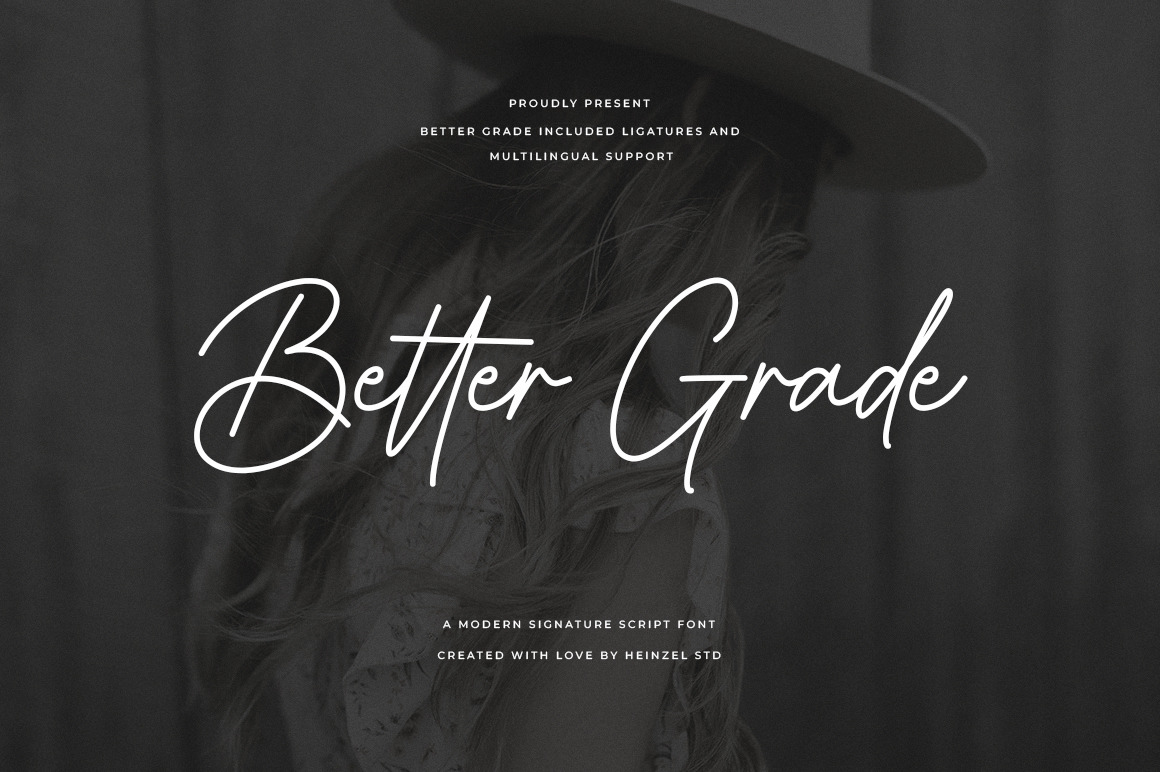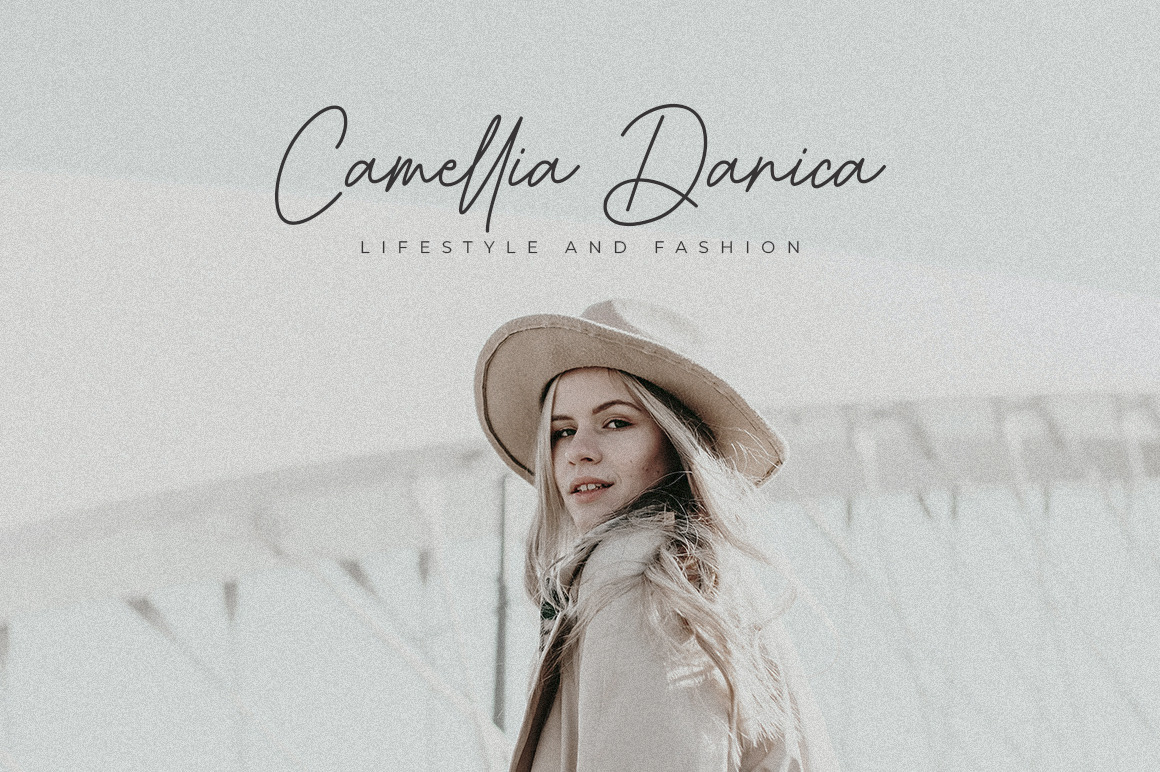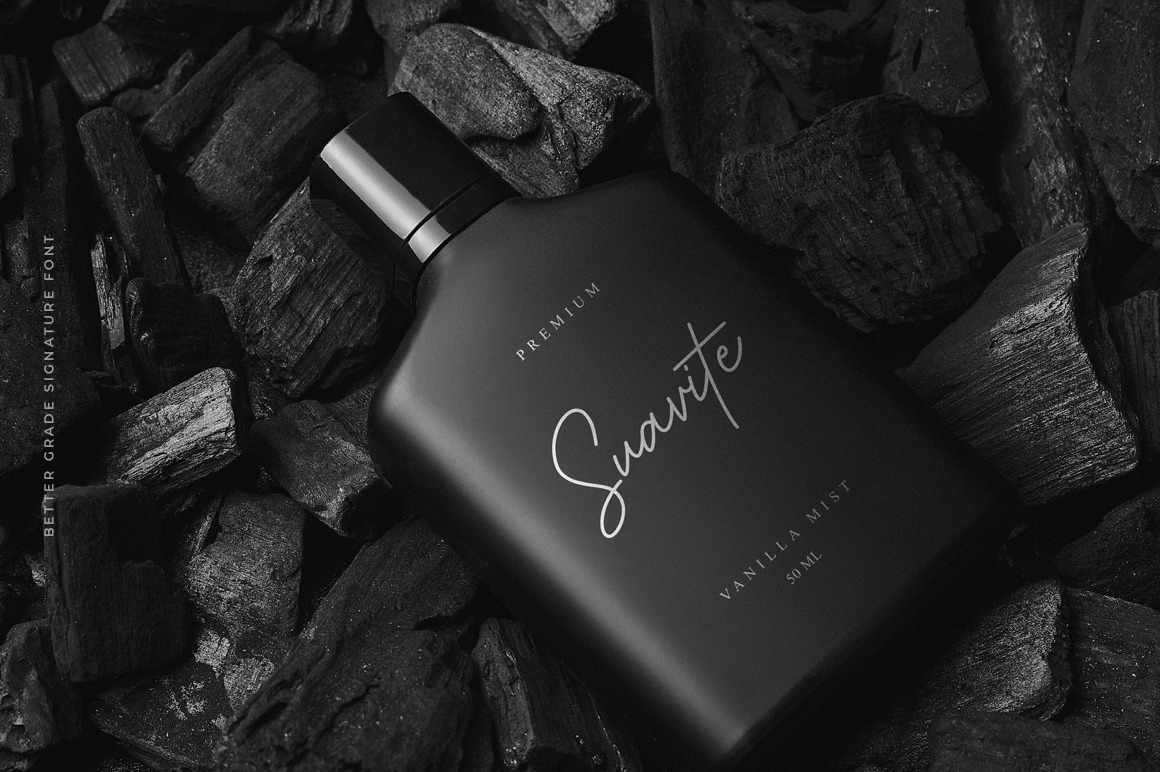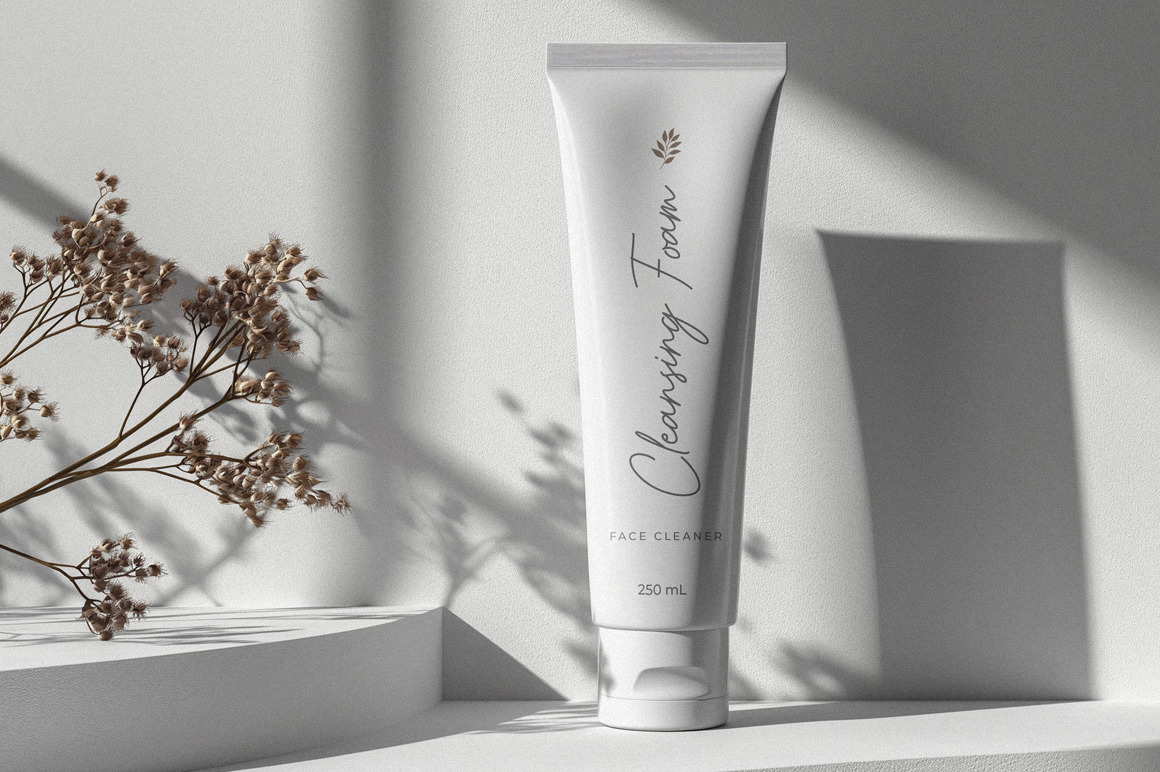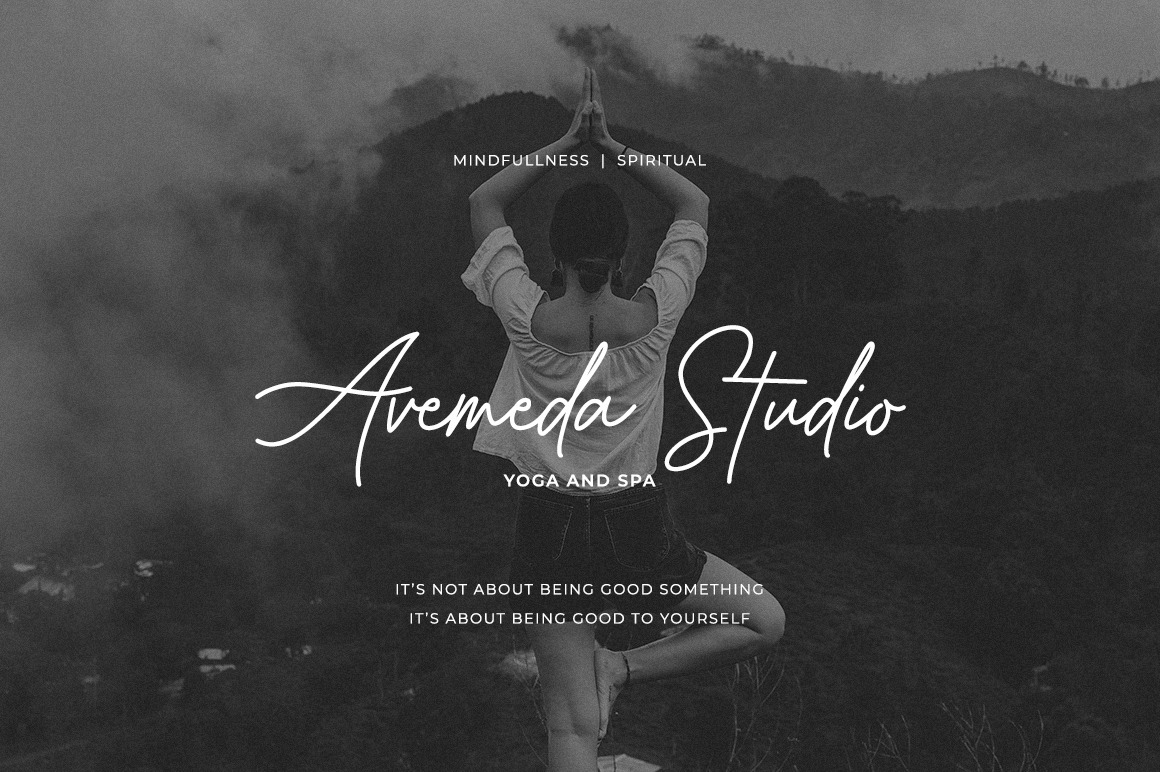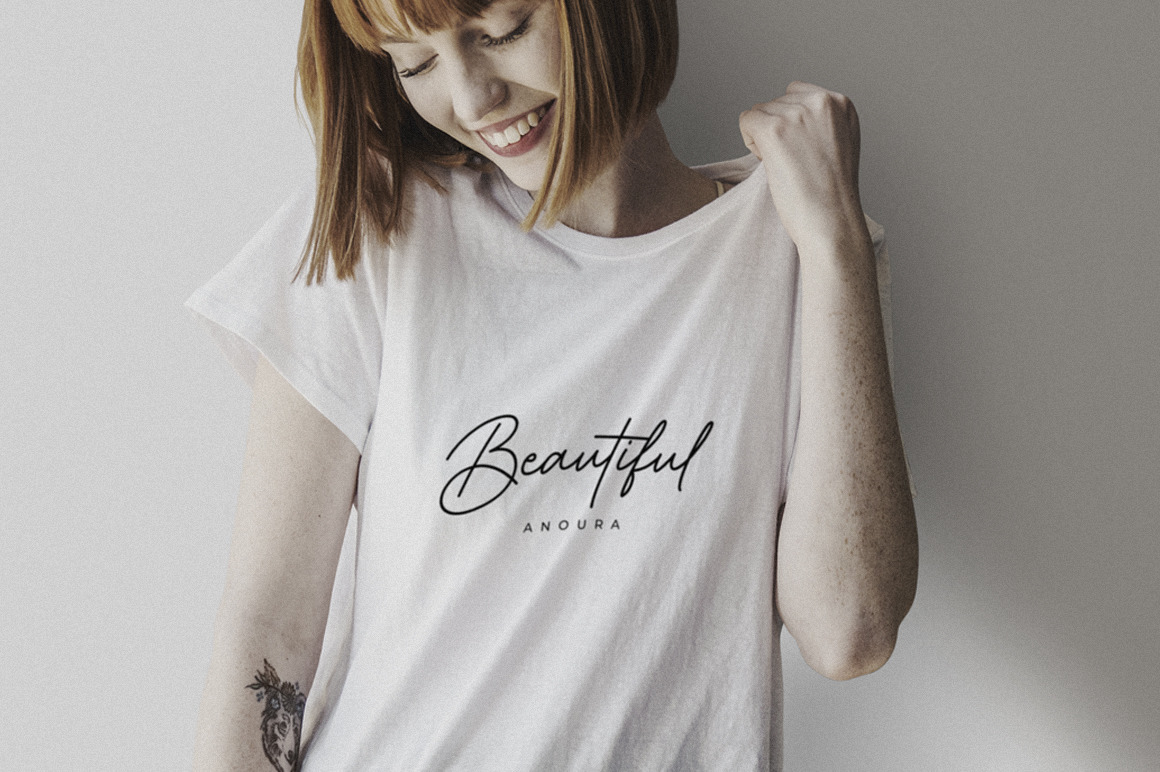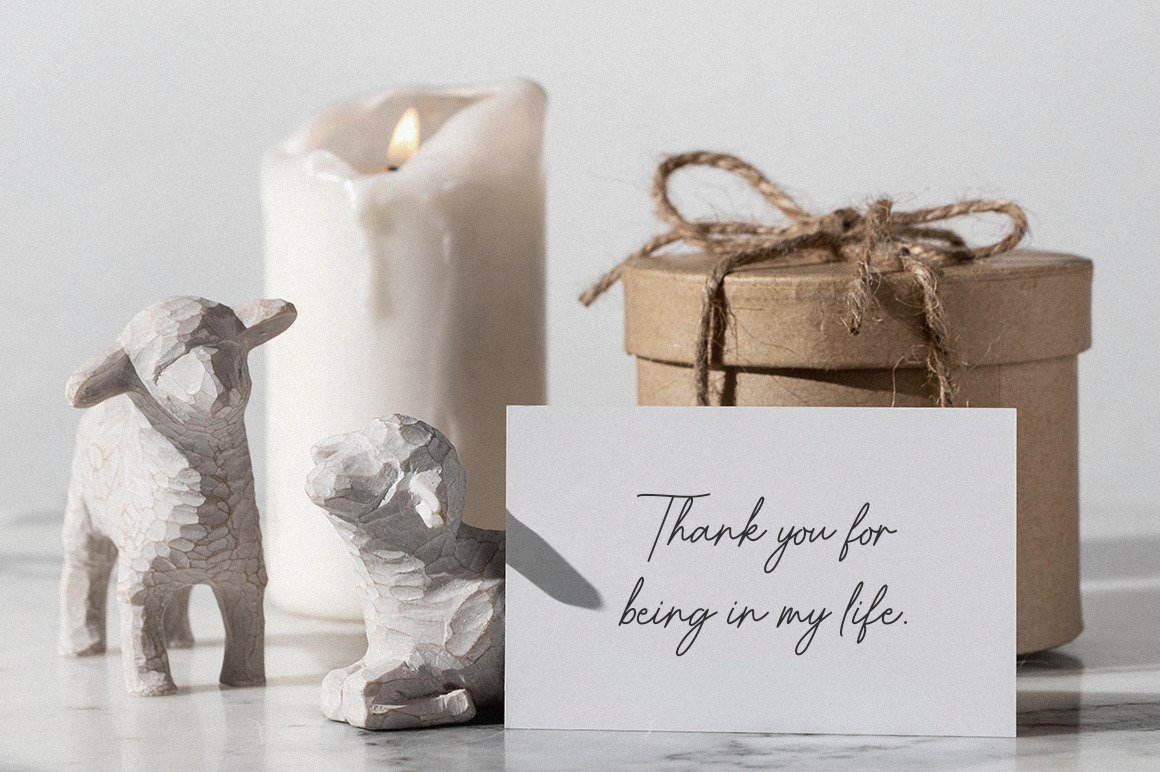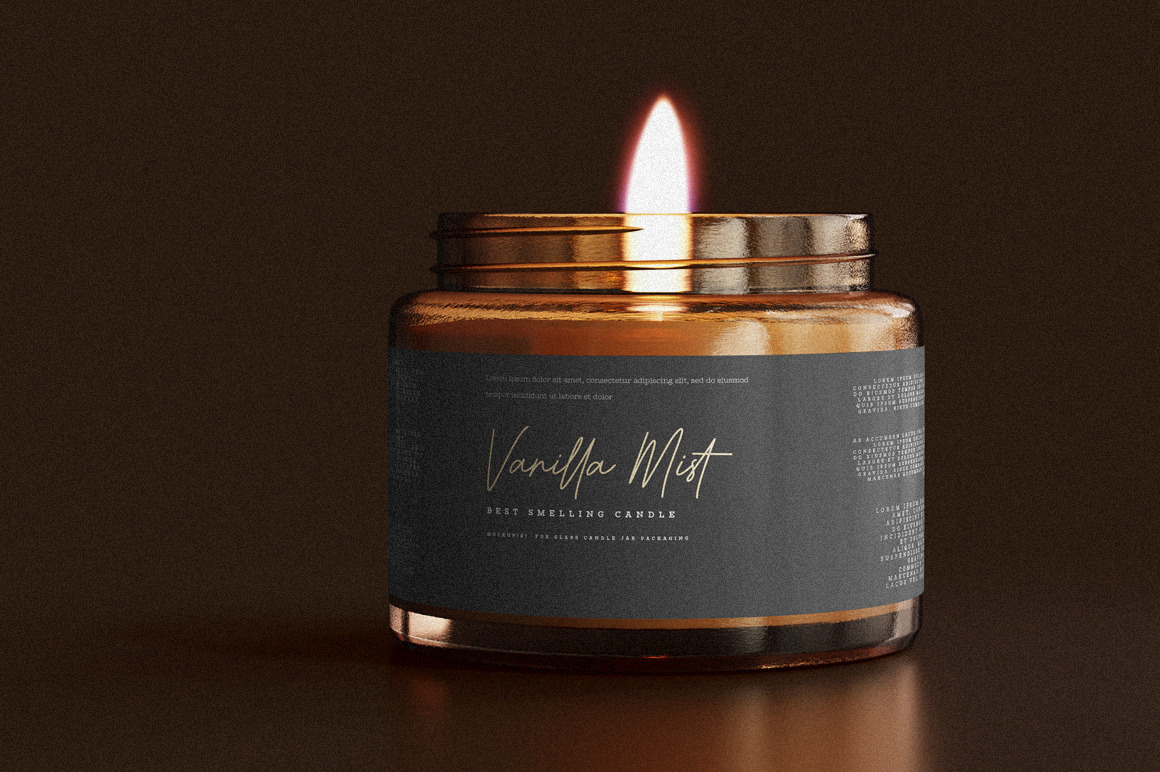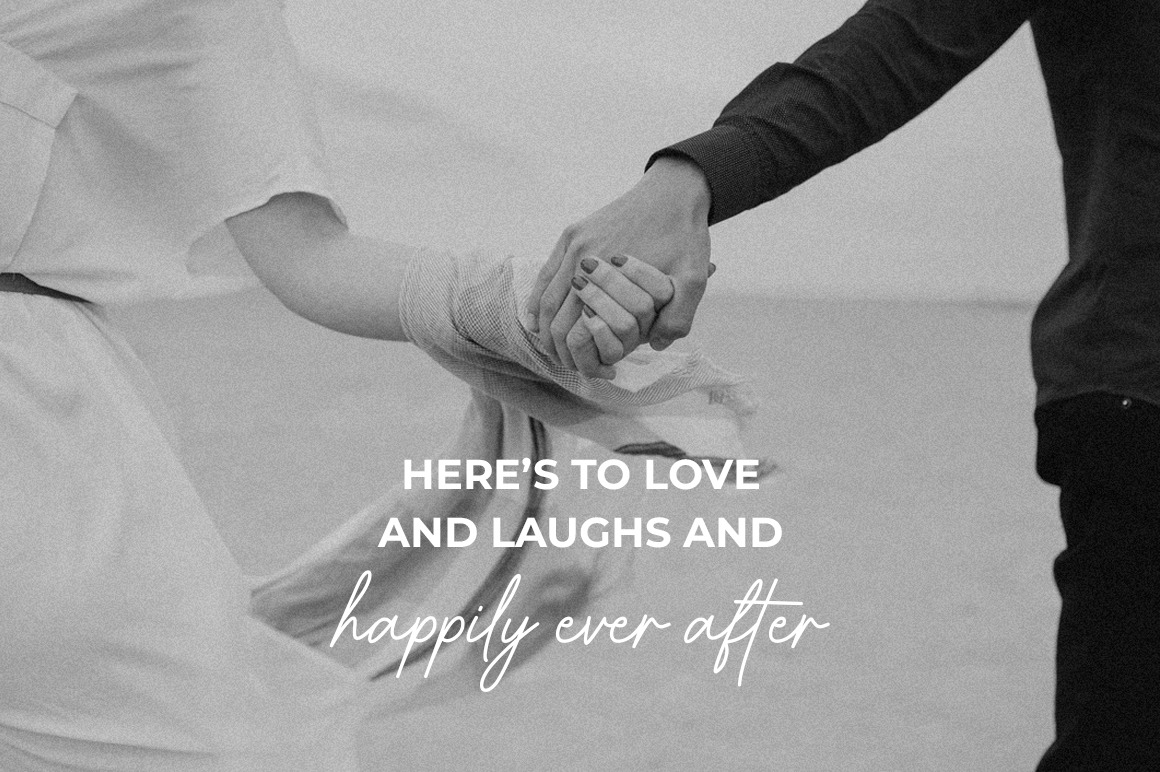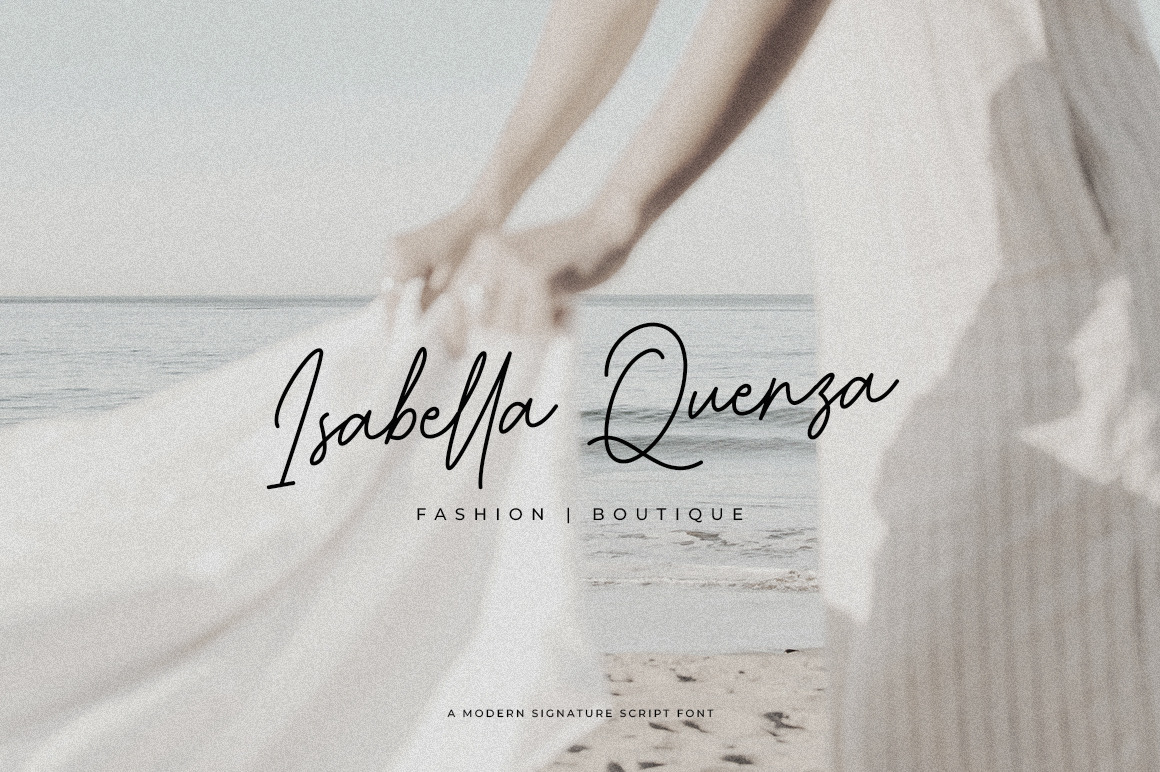
Better Grade - Modern Script Font
Better Grade is a flowing handwritten font, described by an elegant touch, perfect for your favorite projects. Fall in love with its incredibly distinct and timeless style and use it to create spectacular designs!
Better Grade would perfect for photography, watermark, social media posts, advertisements, logos & branding, invitation, product designs, label, stationery, wedding designs, product packaging, special events or anything that need handwriting taste.